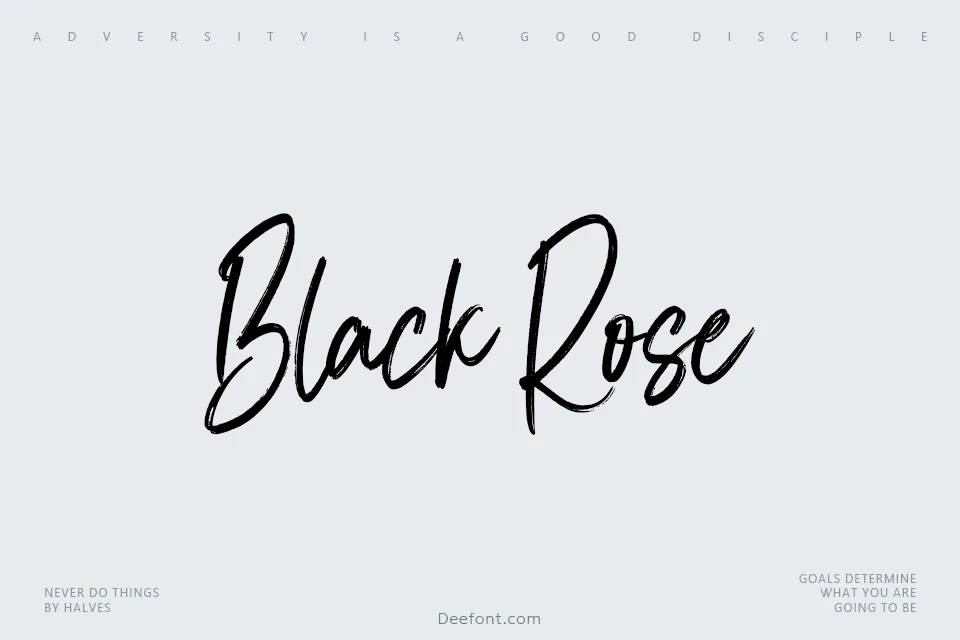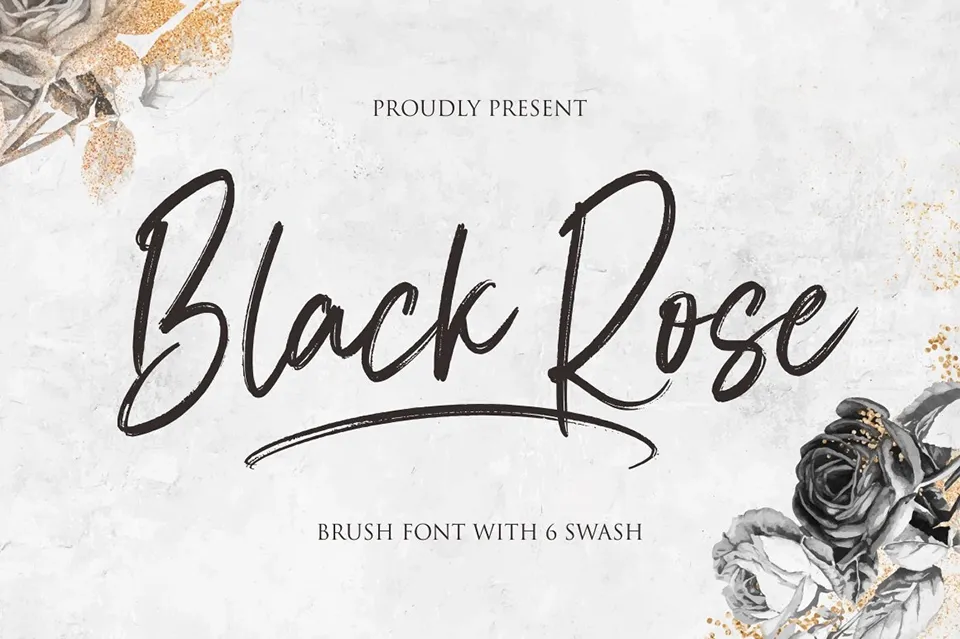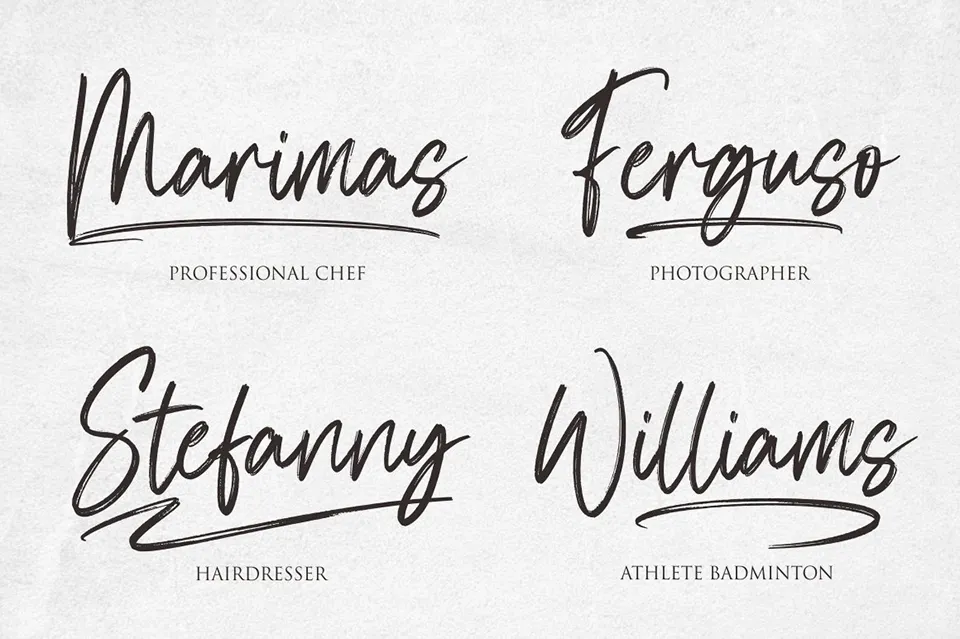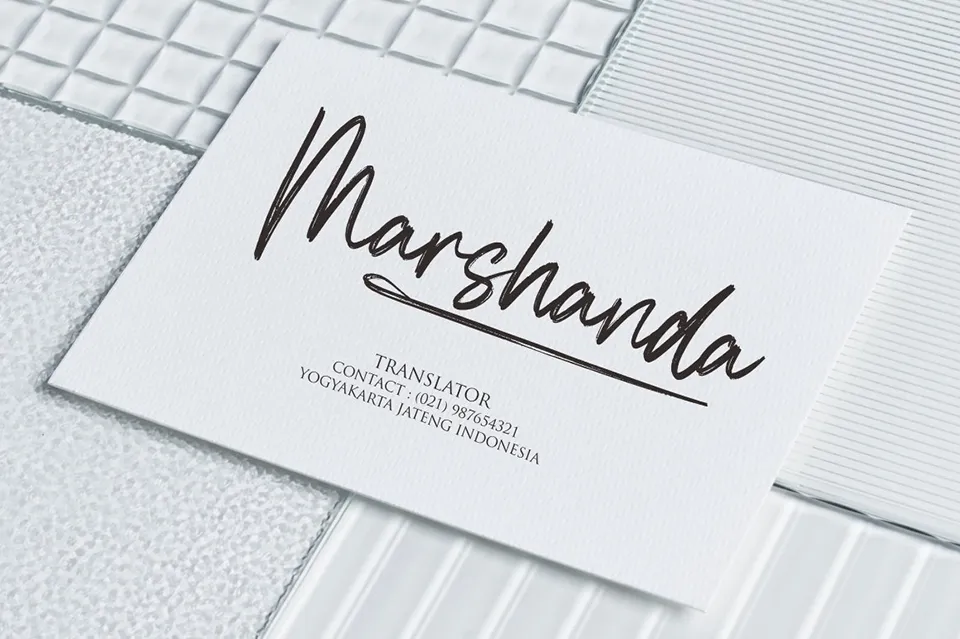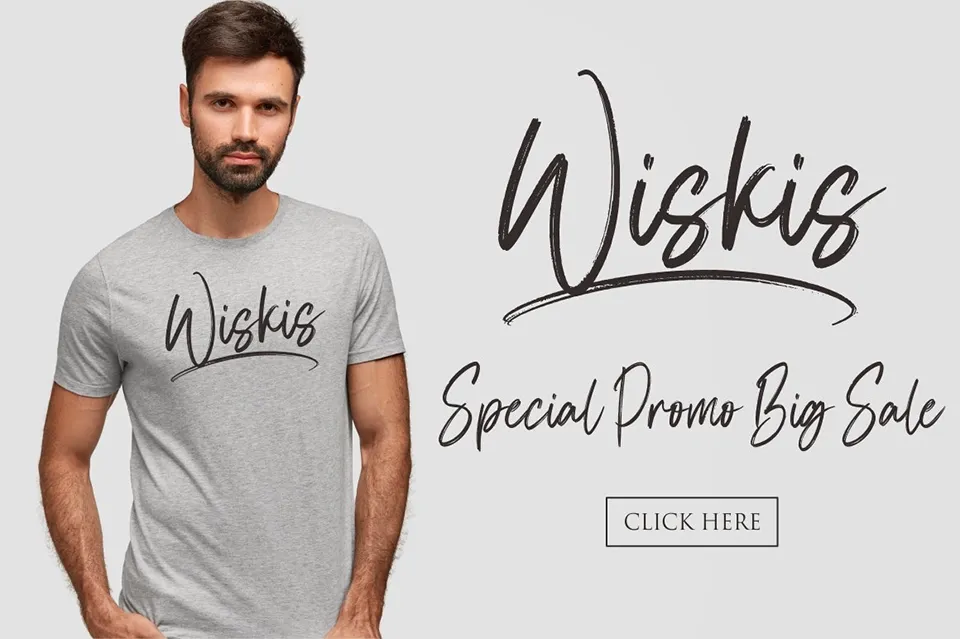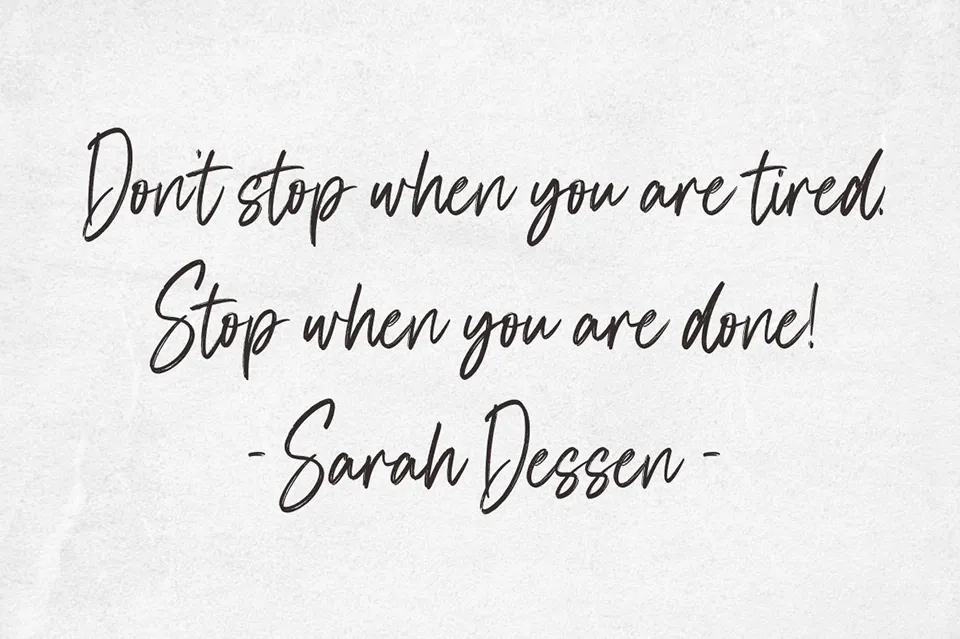
Black Rose Font t
Black Rose Brush Font is an expressive brush script inspired by natural handwriting, created with a slightly dry brush pen for a quick, authentic look. With its elegant ligatures and swash options, this font is perfect for branding, wedding invitations, social media, apparel, and more. The font is PUA encoded, making all glyphs easily accessible for your creative needs, and it brings a handcrafted, artistic flair to any project.